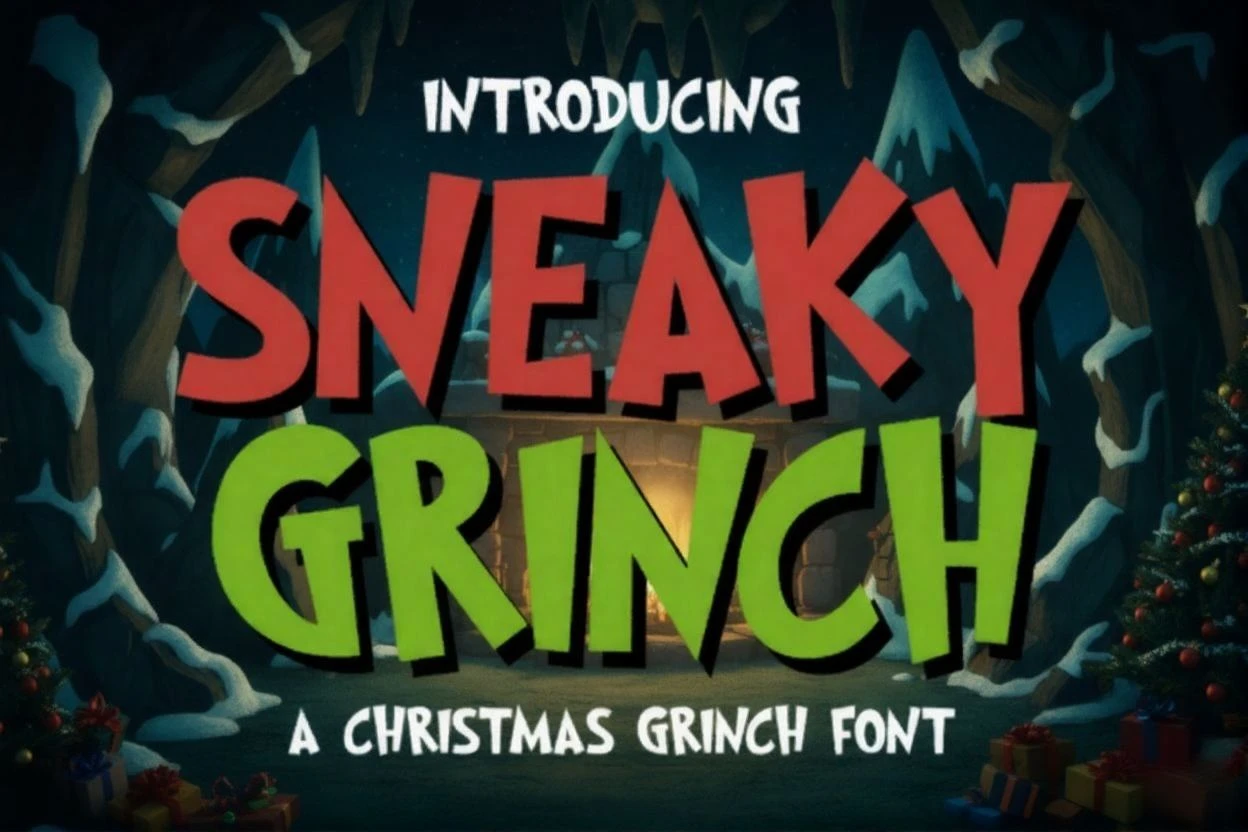
Sneaky Grinch Font is a fun and playful Christmas typeface inspired by the mischievous spirit of the holidays. With bold, quirky letters and energetic shapes, this handcrafted cartoon font adds a touch of humor and joy to every design.
Perfect for Christmas cards, festive posters, kids’ projects, T-shirt designs, mugs, or any holiday craft, Sneaky Grinch Font brings cheer and creativity to your work. Its slanted, lively style makes your text stand out with personality and festive warmth.